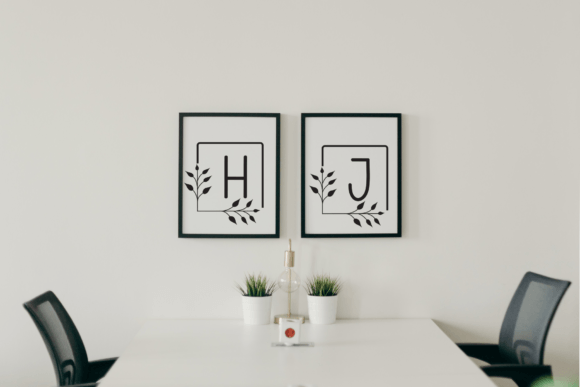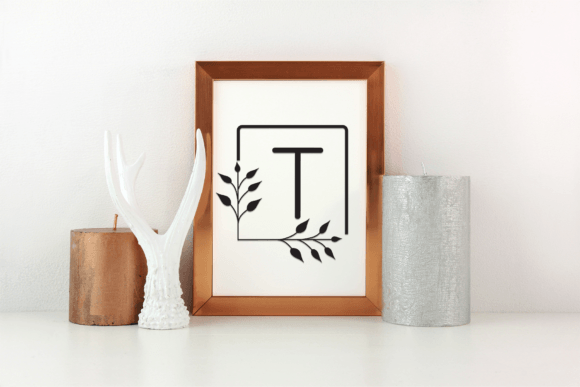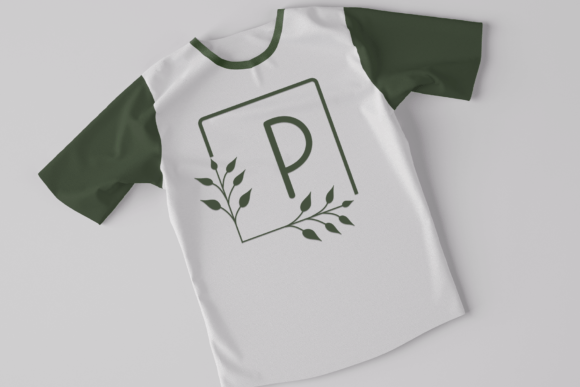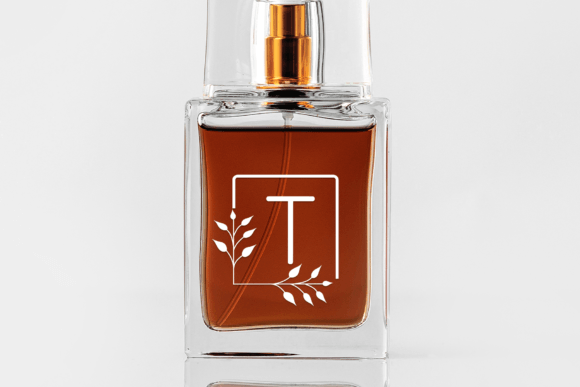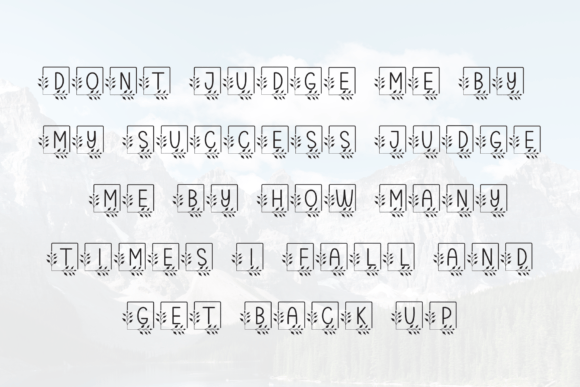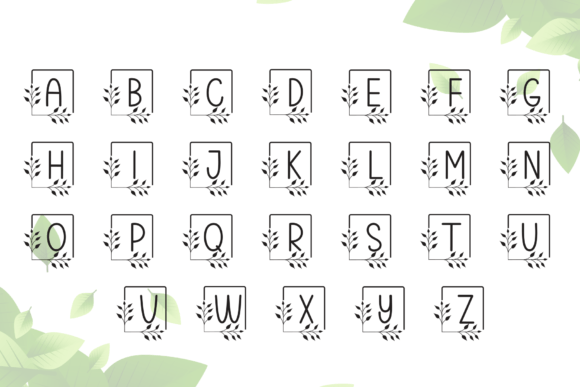
Introducing Frame Monogram Font: Elevate Your Designs with Organic Elegance
Are you a designer or crafter looking for a unique and beautiful font to add a touch of elegance to your creations? Look no further than Frame Monogram Font, an organic and stunning decorative font featuring lovely ornaments. This versatile font is perfect for a wide range of design projects, from wedding invitations and branding materials to social media graphics and more.
The Beauty of Frame Monogram Font
Frame Monogram Font is a true showstopper, with its intricate and delicate design making it perfect for adding a touch of sophistication to any project. The font features beautiful ornaments and a unique, organic style that sets it apart from more traditional fonts. Whether you’re looking to create a romantic and whimsical design or a more modern and sleek look, Frame Monogram Font is sure to impress.
One of the best things about Frame Monogram Font is its versatility. This incredible font can be used for a wide range of design projects, including:
- Signs and banners
- Packaging and labels
No matter the topic or project, Frame Monogram Font is sure to be an incredible asset to your font library.
Why Choose Frame Monogram Font?
So why choose Frame Monogram Font over other decorative fonts? Here are just a few reasons:
- Unique and eye-catching design: Frame Monogram Font features a truly unique and eye-catching design that is sure to make your projects stand out.
- High-quality and versatile: This font is high-quality and versatile, making it perfect for a wide range of design projects.
- Elegant and sophisticated: Frame Monogram Font adds a touch of elegance and sophistication to any project, making it perfect for designs that require a more refined look.
Tips for Using Frame Monogram Font
Here are a few tips for getting the most out of Frame Monogram Font:
- Use it sparingly: Because Frame Monogram Font is so decorative, it’s best to use it sparingly to avoid overwhelming the design.
- Pair it with a simple font: Pair Frame Monogram Font with a simple font to create a beautiful contrast and make your design stand out.
- Experiment with different colors and textures: Don’t be afraid to experiment with different colors and textures to add depth and interest to your design.
Frame Monogram Font is a beautiful and versatile decorative font that is sure to elevate any design project. With its unique and eye-catching design, high-quality and versatility, and elegant and sophisticated style, this font is perfect for designers and crafters looking to add a touch of elegance to their creations. Whether you’re working on a wedding invitation, branding materials, or social media graphics, Frame Monogram Font is an incredible asset to have in your font library.